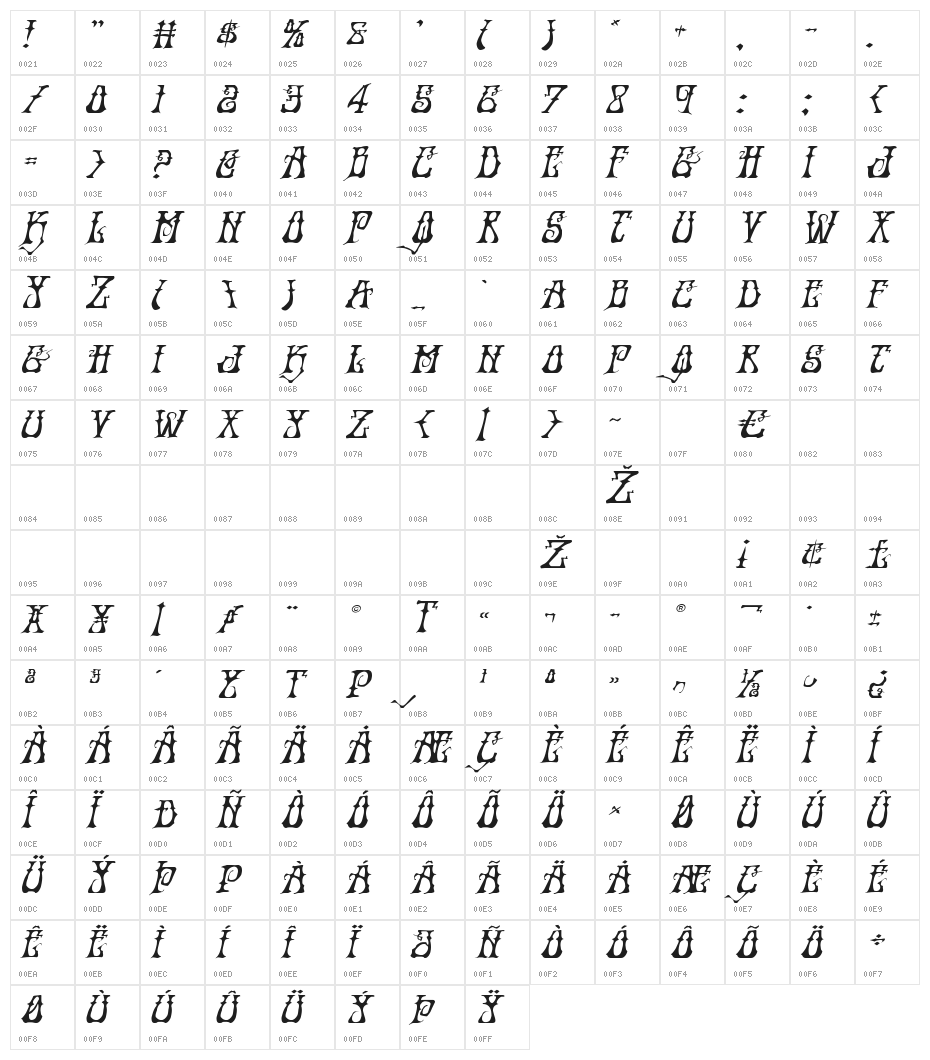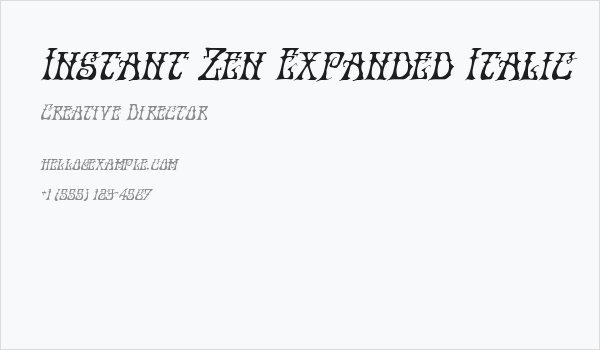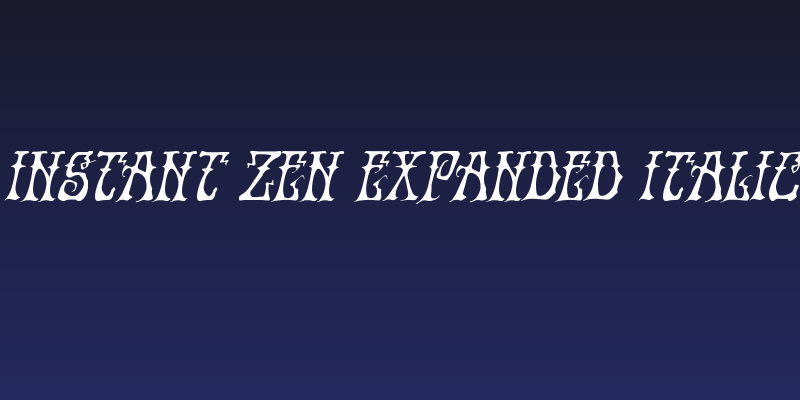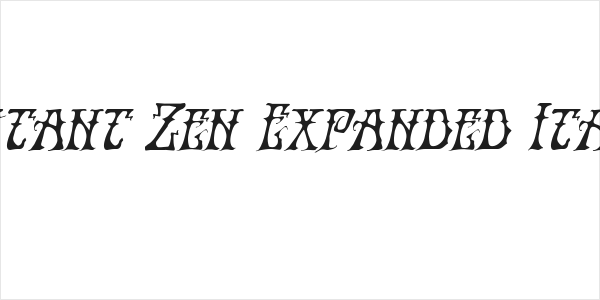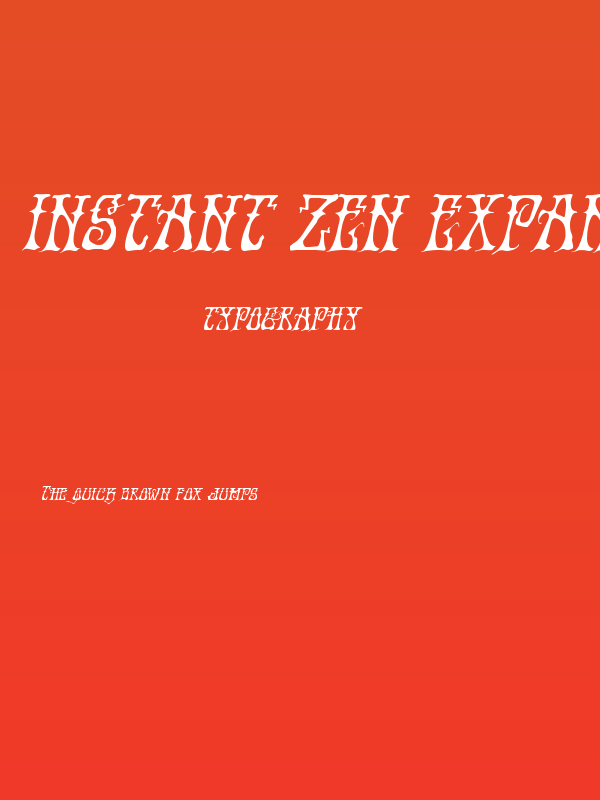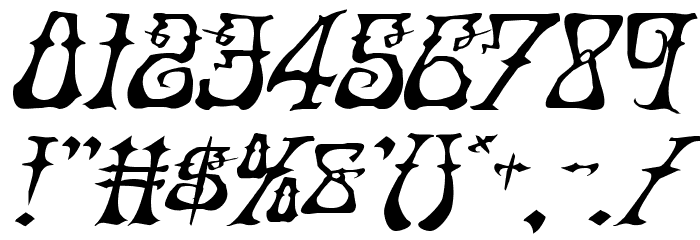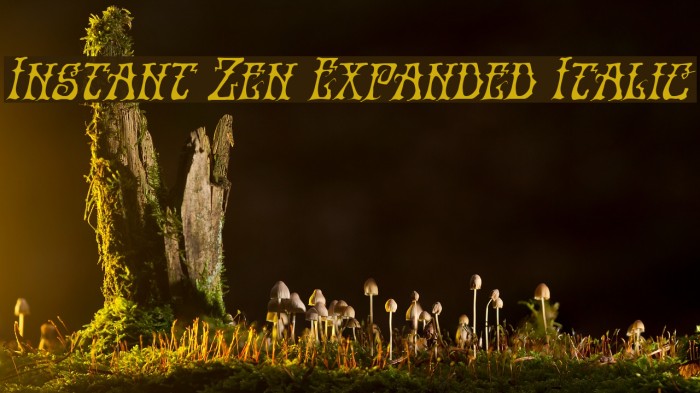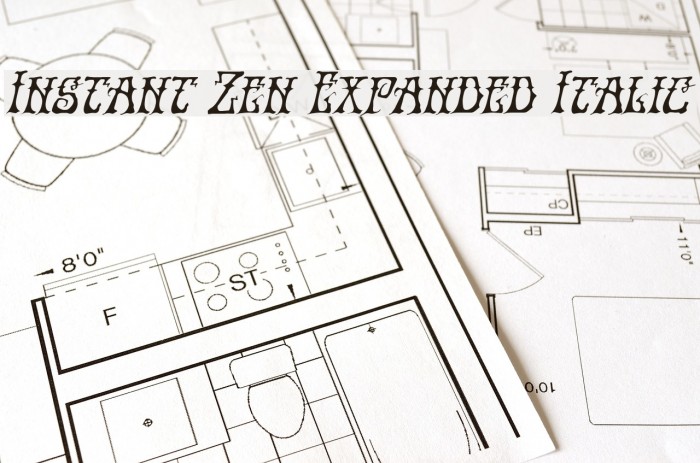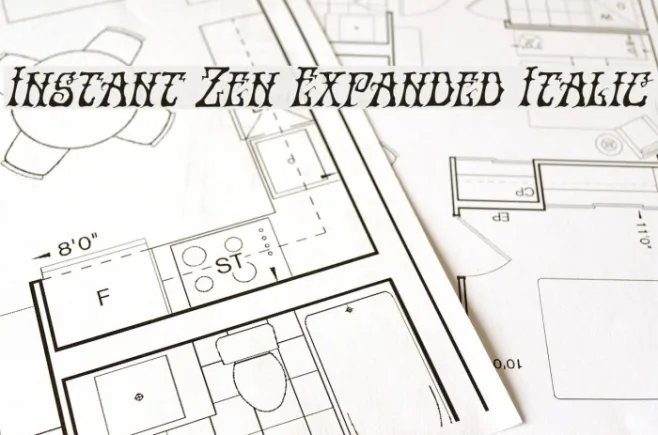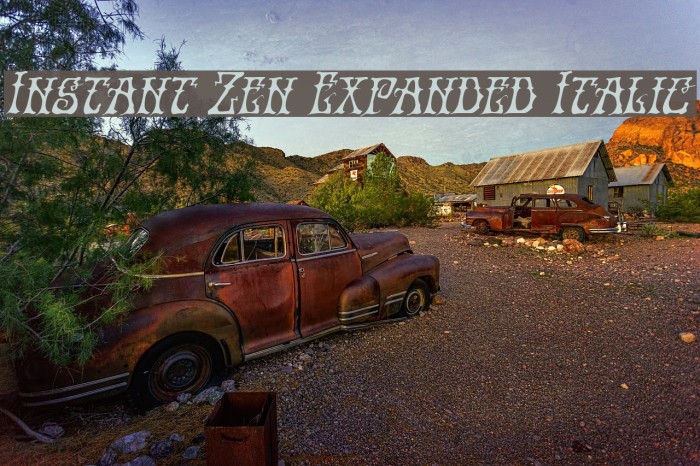
Instant Zen Expanded Italic Font
Instant Zen Expanded Italic Description
This font features a bold, dramatic style with a distinct gothic influence, characterized by sharp, angular lines and intricate detailing. The letters are highly stylized, with exaggerated serifs and a flowing, italicized form that adds a sense of movement and flair. The expanded width gives the characters a commanding presence, making them ideal for attention-grabbing designs. The numbers and special characters maintain the same ornate style, ensuring consistency across all text elements. This font's unique aesthetic is perfect for projects that require a bold, artistic touch.
| Overall Style | Gothic, Decorative |
| Use Case | Headlines, Logos, Artistic designs |
| Proposed Projects | Ideal for album covers, posters, tattoo designs, and any project needing a bold, artistic touch. |